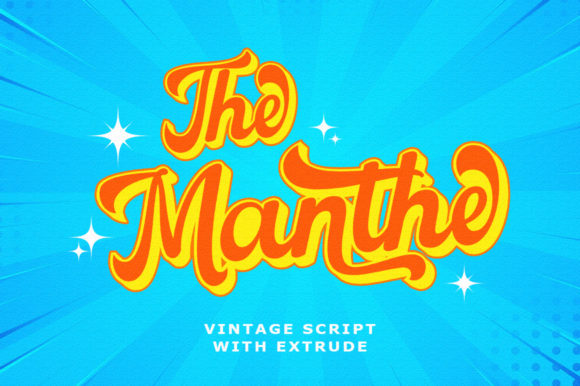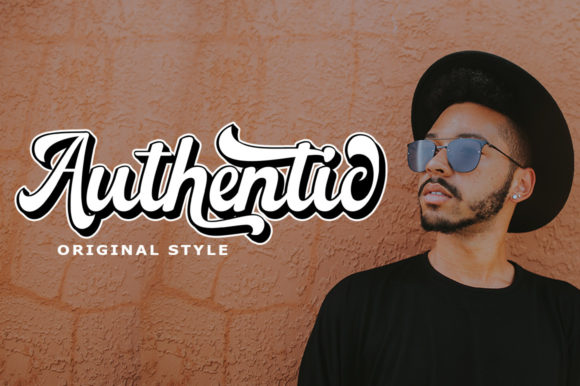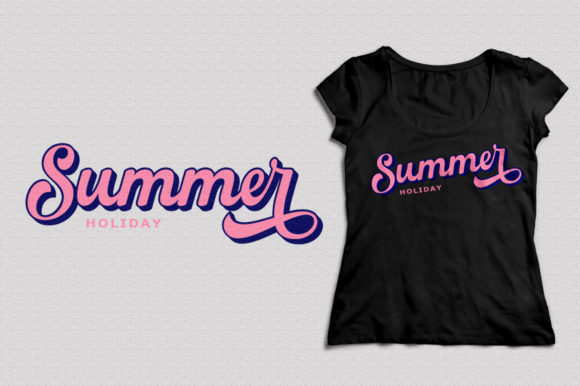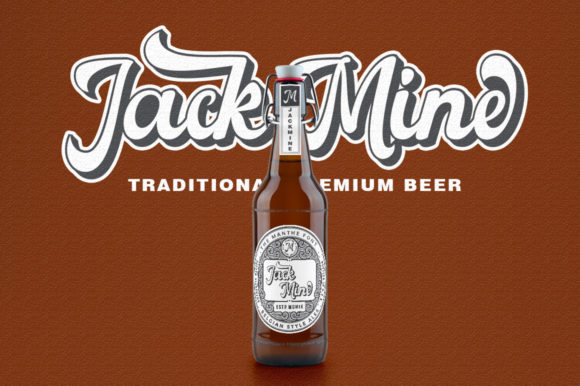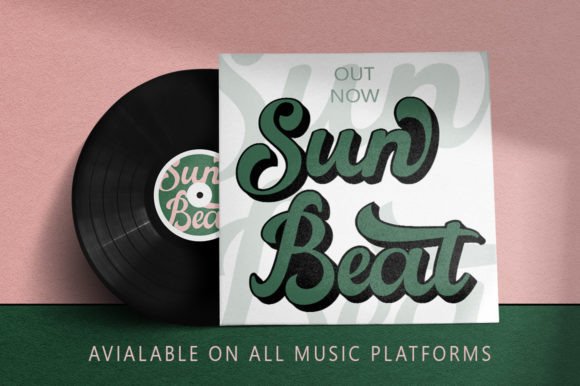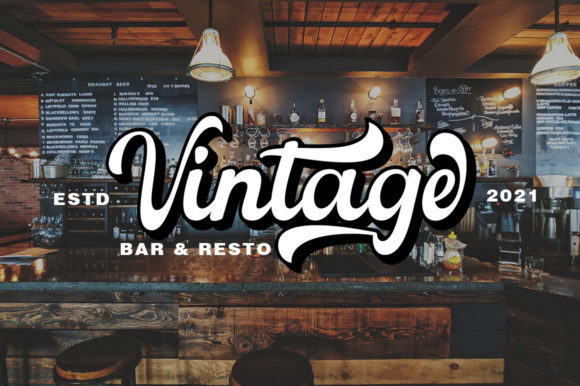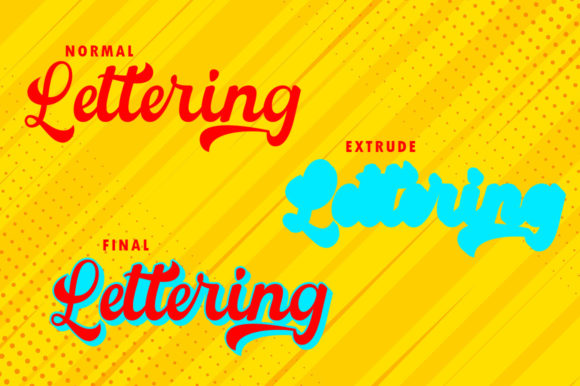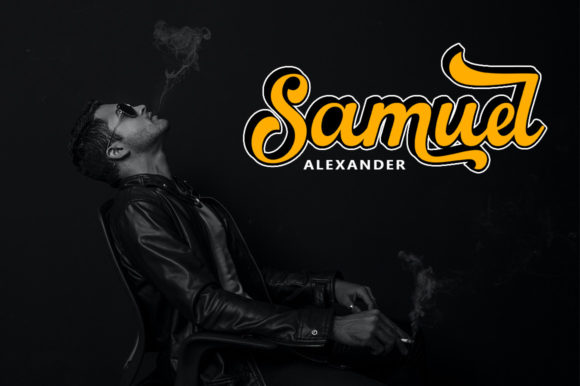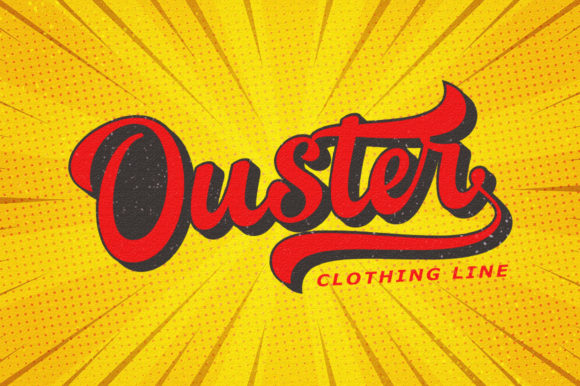
The Manthe Font
About The Manthe Font
The Manthe is a gorgeous and bold handwritten font, crafted to give your headlines and logotype projects a retro touch. This font reads as strong, confident, and dynamic and can add tons of nostalgic character to your designs.